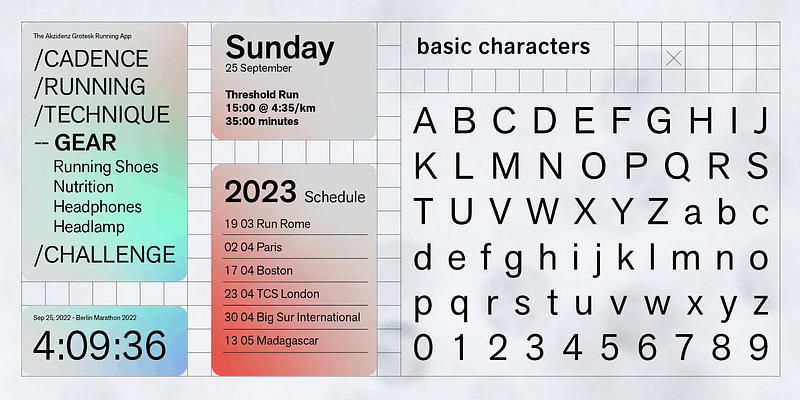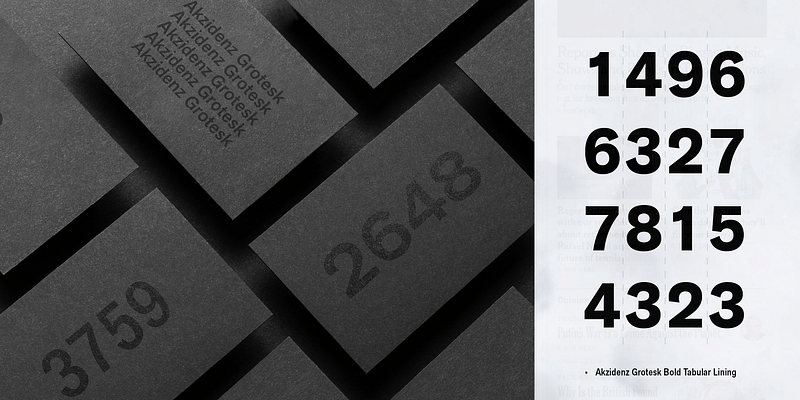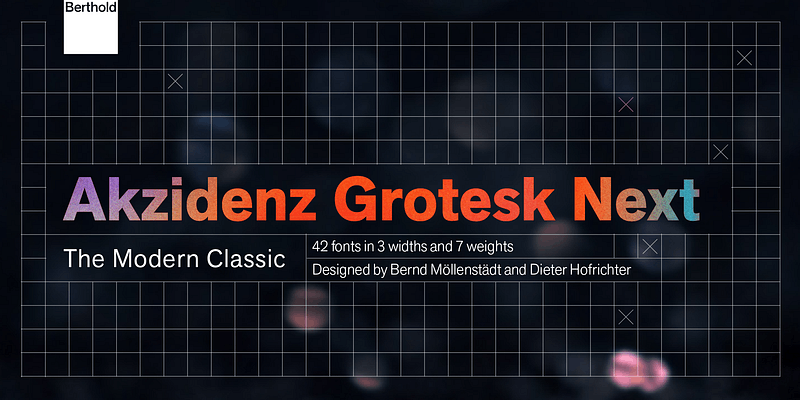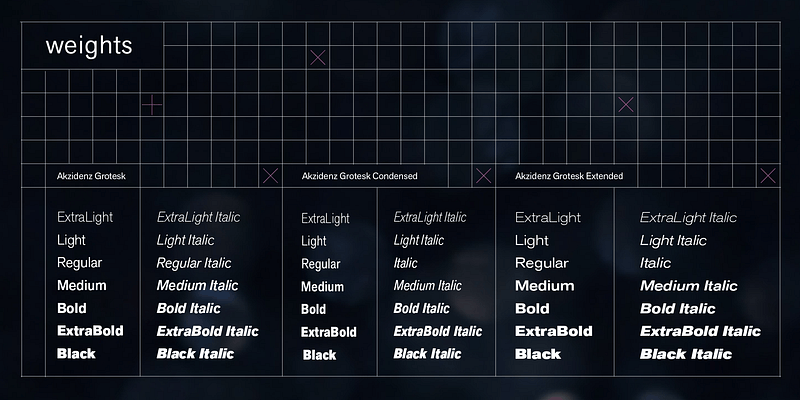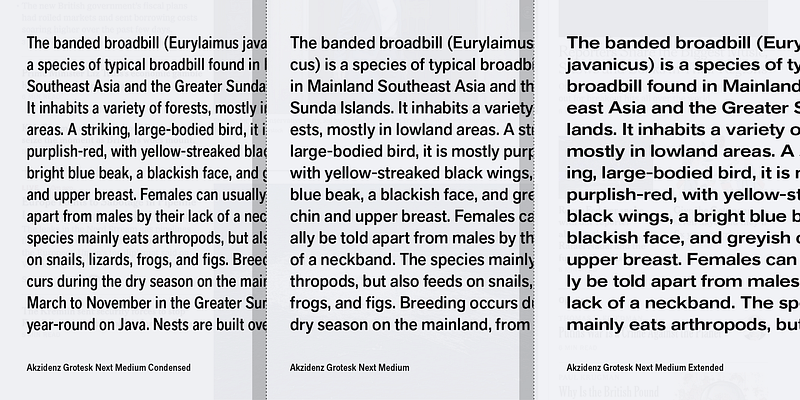
Berthold first published Akzidenz-Grotesk in 1896. The design originates from Royal Grotesk light by Ferdinand Theinhardt who also supplied the regular, medium and bold weights. This new interpretation by Bernd Möllenstädt and Dieter Hofrichter has been conceived as a single family that uses the principal shape characteristics of Akzidenz-Grotesk which now appear throughout all the weights. The x-height has been readjusted as well as the weights to obtain a more consistent design throughout the family from extralight to black.